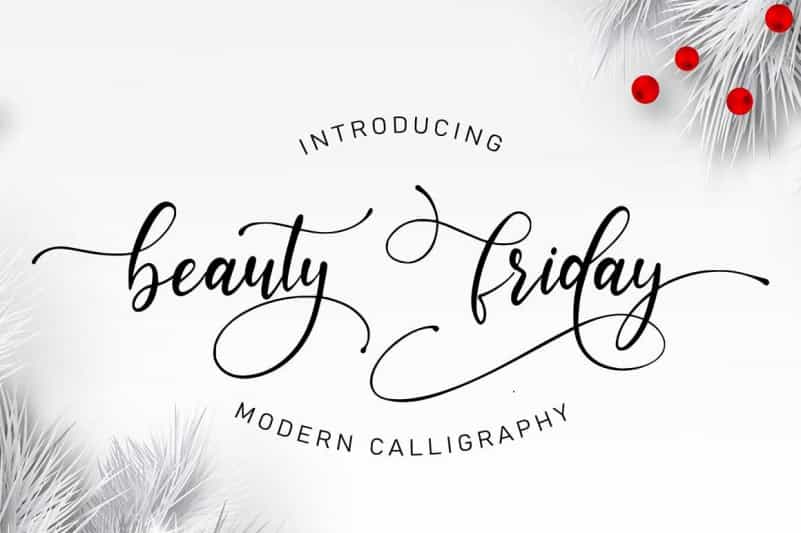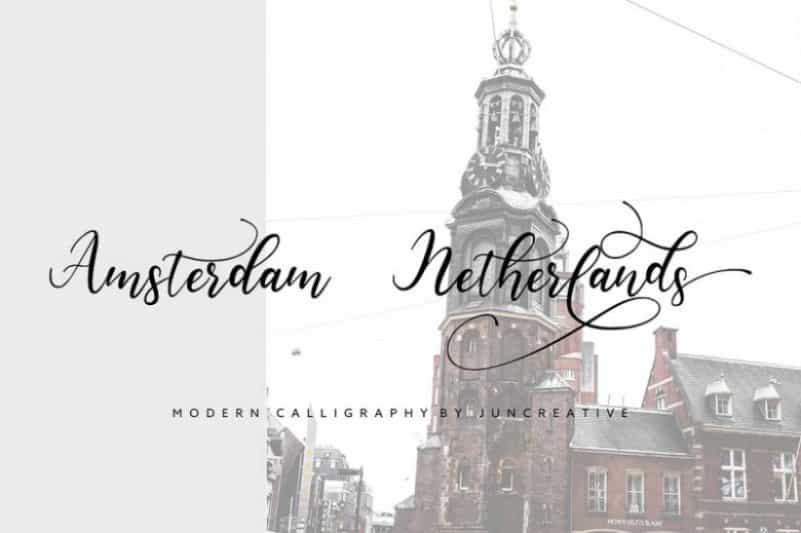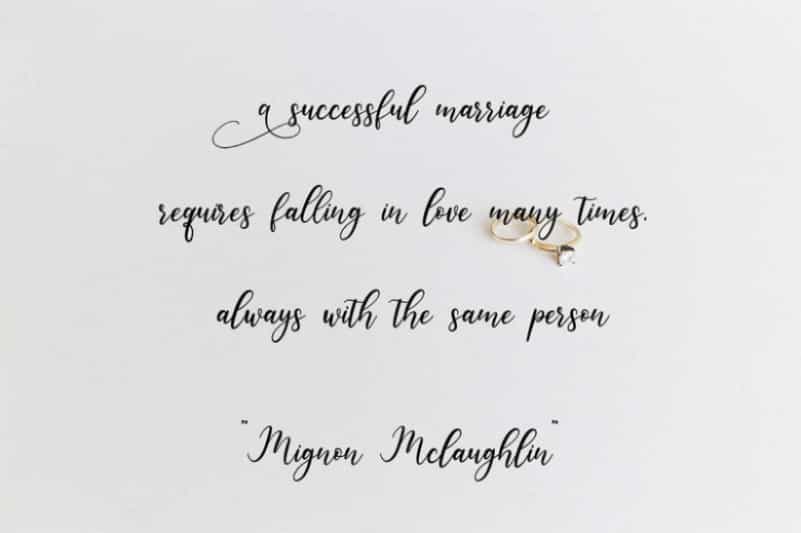
Beauty Friday Font is a modern calligraphy font with the current handwriting style, this font is perfect for branding, wedding invites, magazines, mugs, business cards, quotes, posters, and more, you can try first if you want to buy this font.